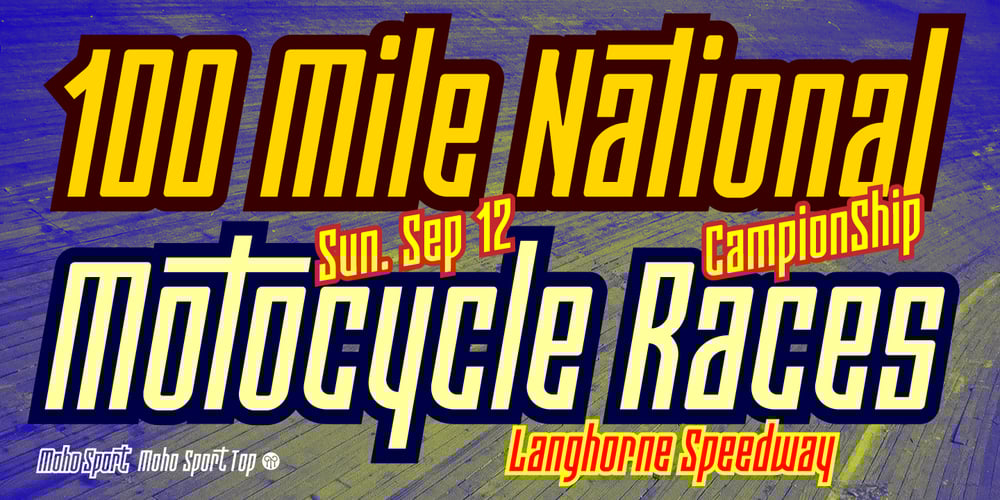
Moho Sport Pro Font Family was designed by John Moore and published by John Moore Type Foundry. Moho Sport Pro contains 4 styles and family package options. As an ingredient of the large family of display typefaces “Moho”, John Moore Type Foundry presents another variation of fonts consisting of two components: a main font Moho Sport based on a thick outline overlapping and Moho Sport Top, a counterblocks as shape or inside filler. Both typographic forms, Open Type, empty and filled complement one another to create interesting layering headlines for announcements, posters, marks or logo design, labels etc. This combination of both typefaces can still gain more interest if the forms are colored using graphic patterns, drawings or photographs. A nonoverlapping version is also available in Moho Sport Fat and your partner Moho Sport Fattop.